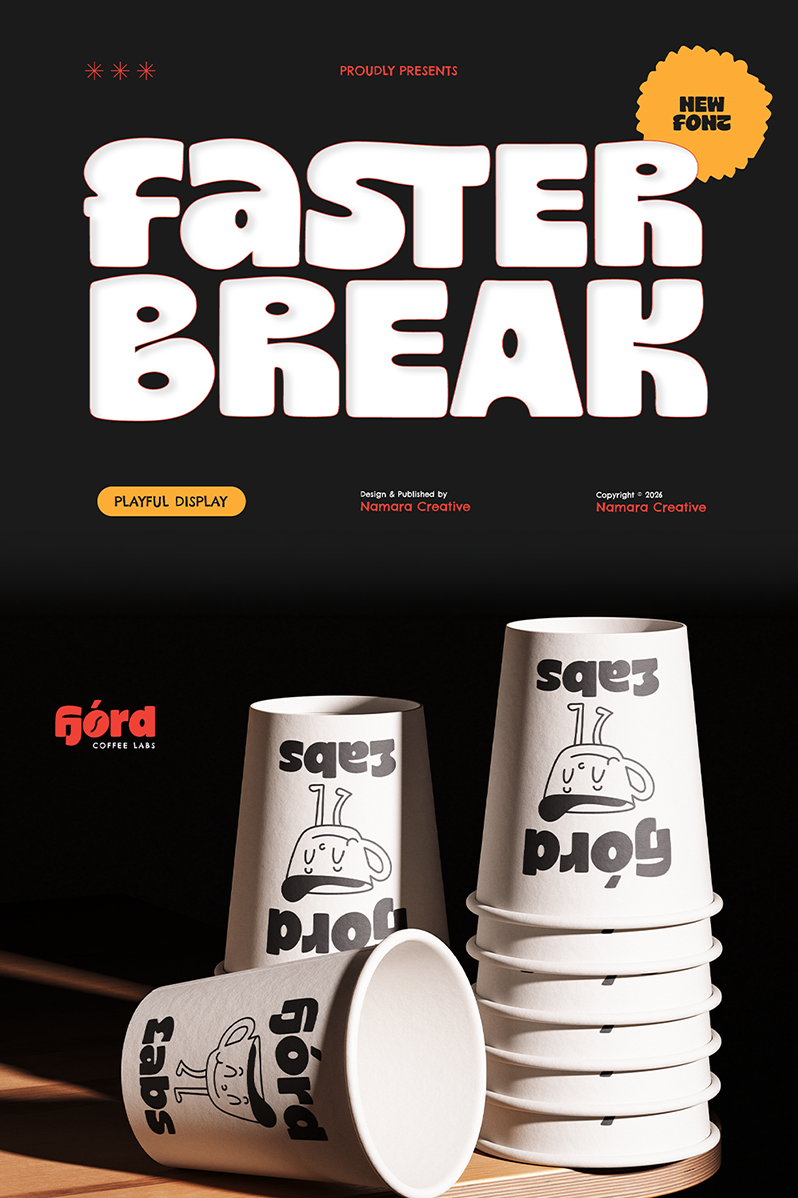
Faster Break
Namara Creative · Regular · Faster Break
Bold display typeface crafted to make every headline stand out. Featuring chunky letterforms, smooth rounded corners, and expressive personality, Faster Break delivers an energetic visual impact that instantly captures attention. Features : - Bold, Rounded Bubble Letterforms - Full set of standard characters and punctuations. - Alternates, ligatures, swashes and multilingual support. - PUA Encoded | no special software needed to access extra characters. Notes : - This Font is PERSONAL USE ONLY, NO COMMERCIAL USE ALLOWED! - For Full Version and COMMERCIAL USE, please purchase license here https://onedsgn.com/product/faster-break-chunky-bold-display/